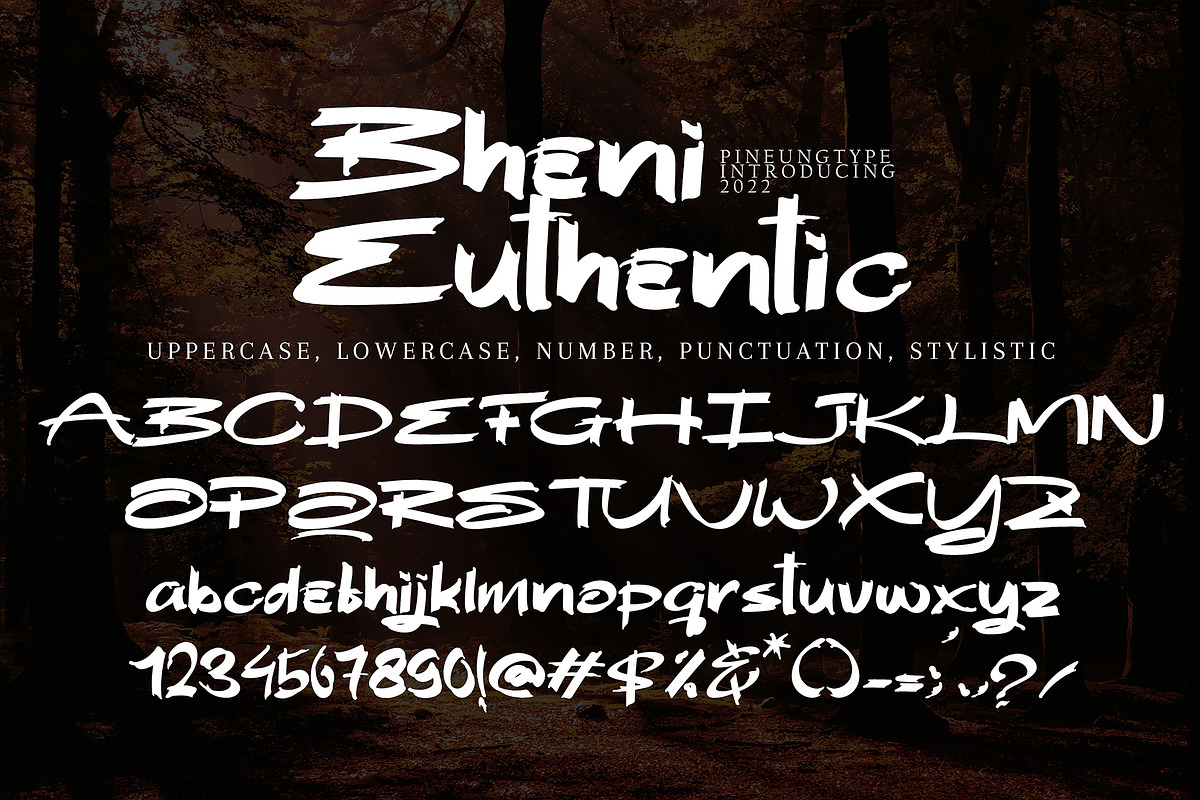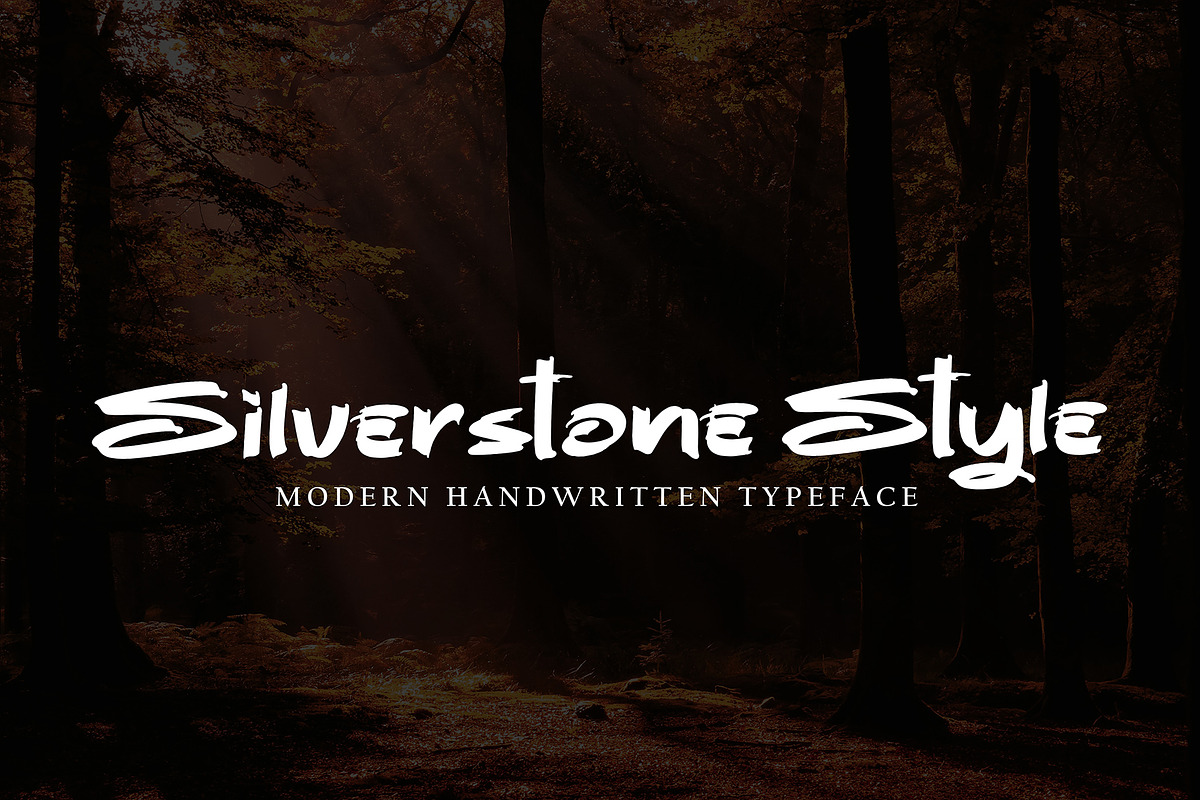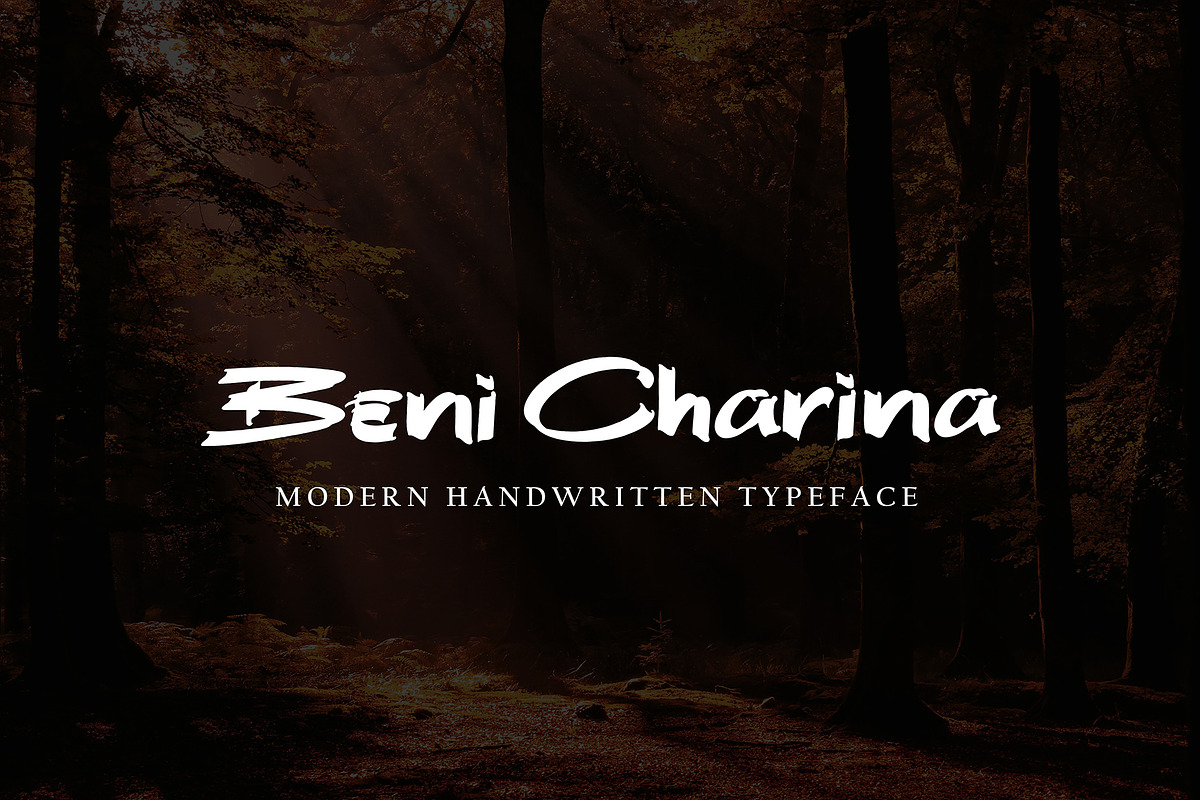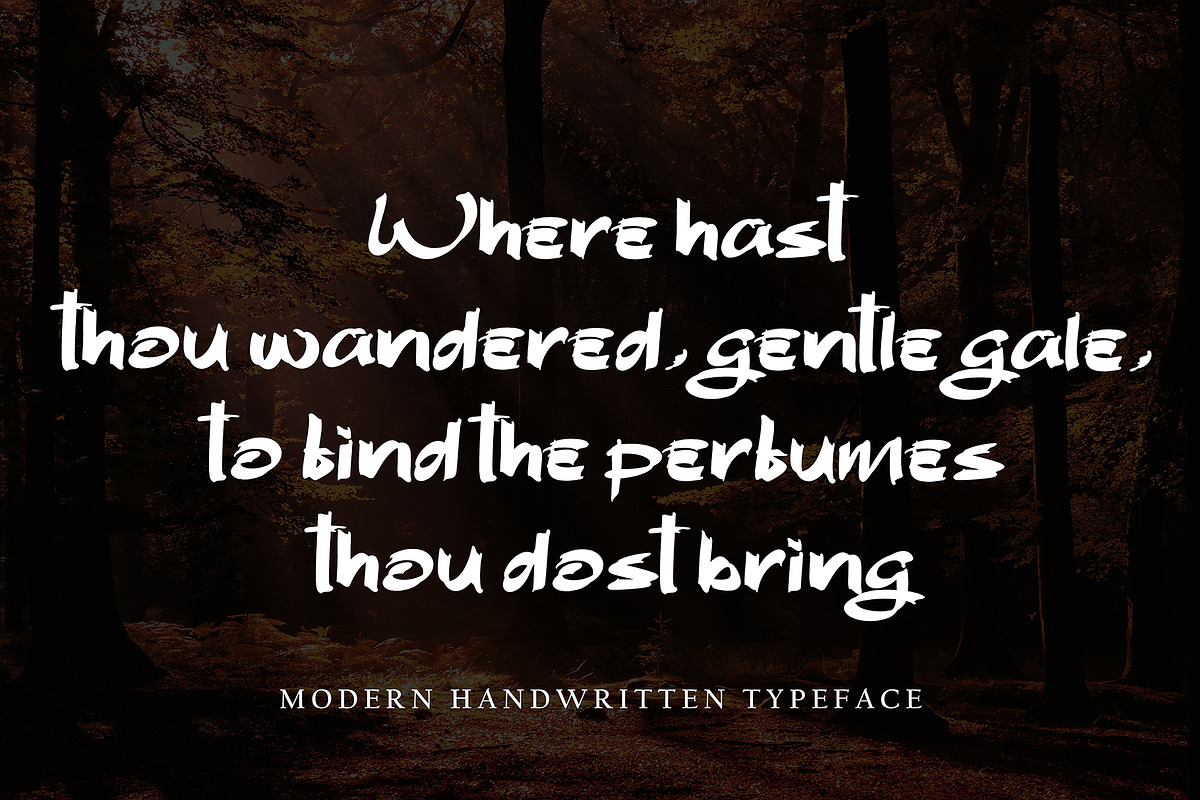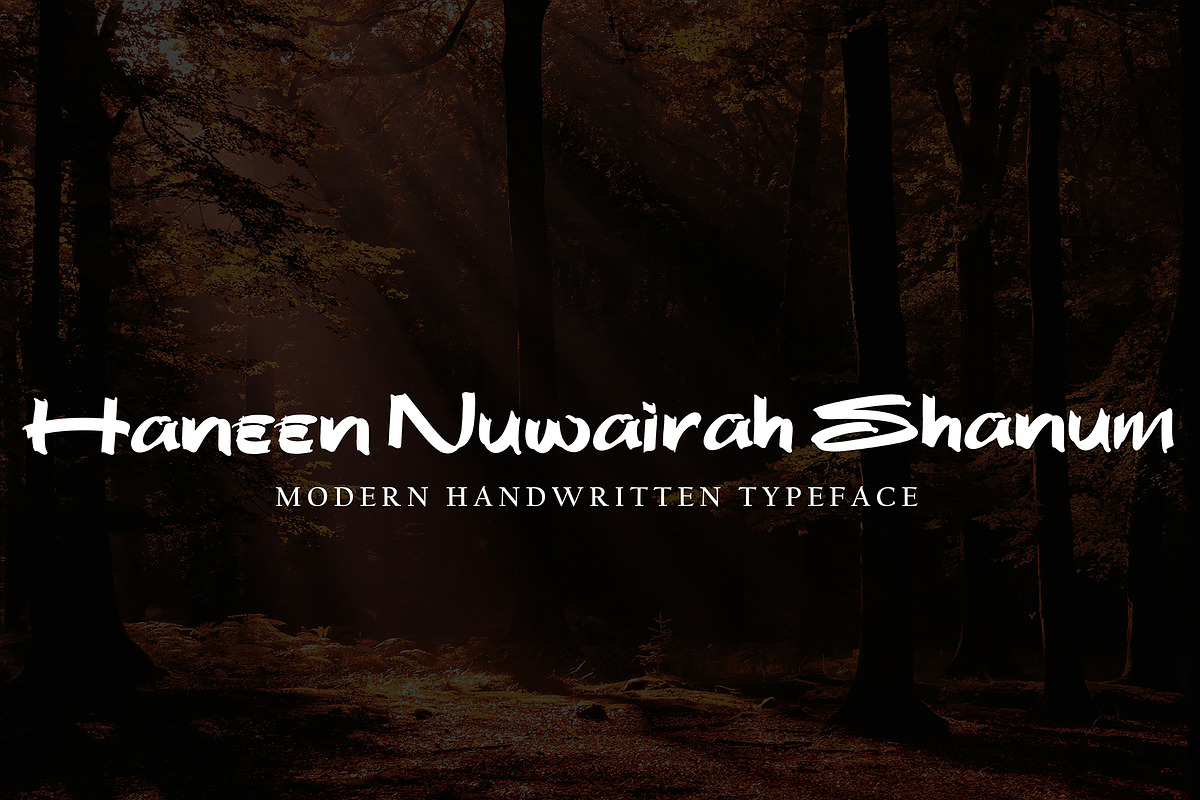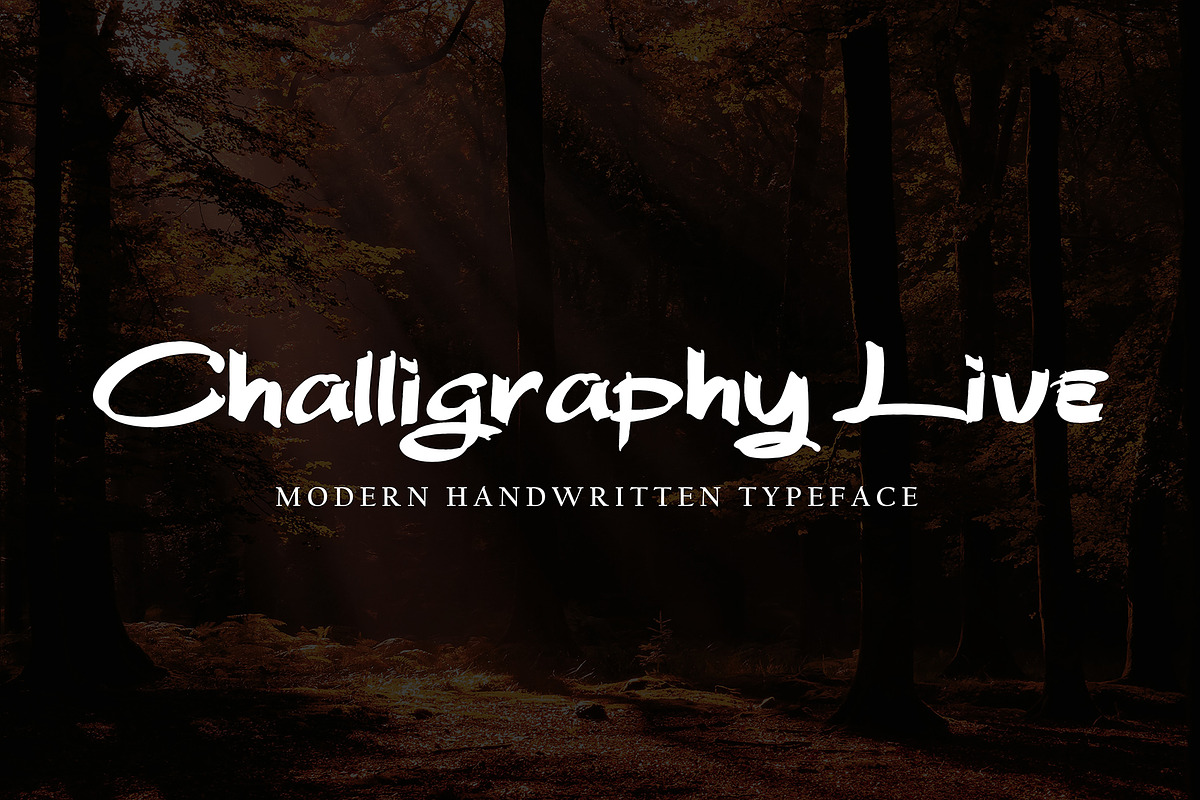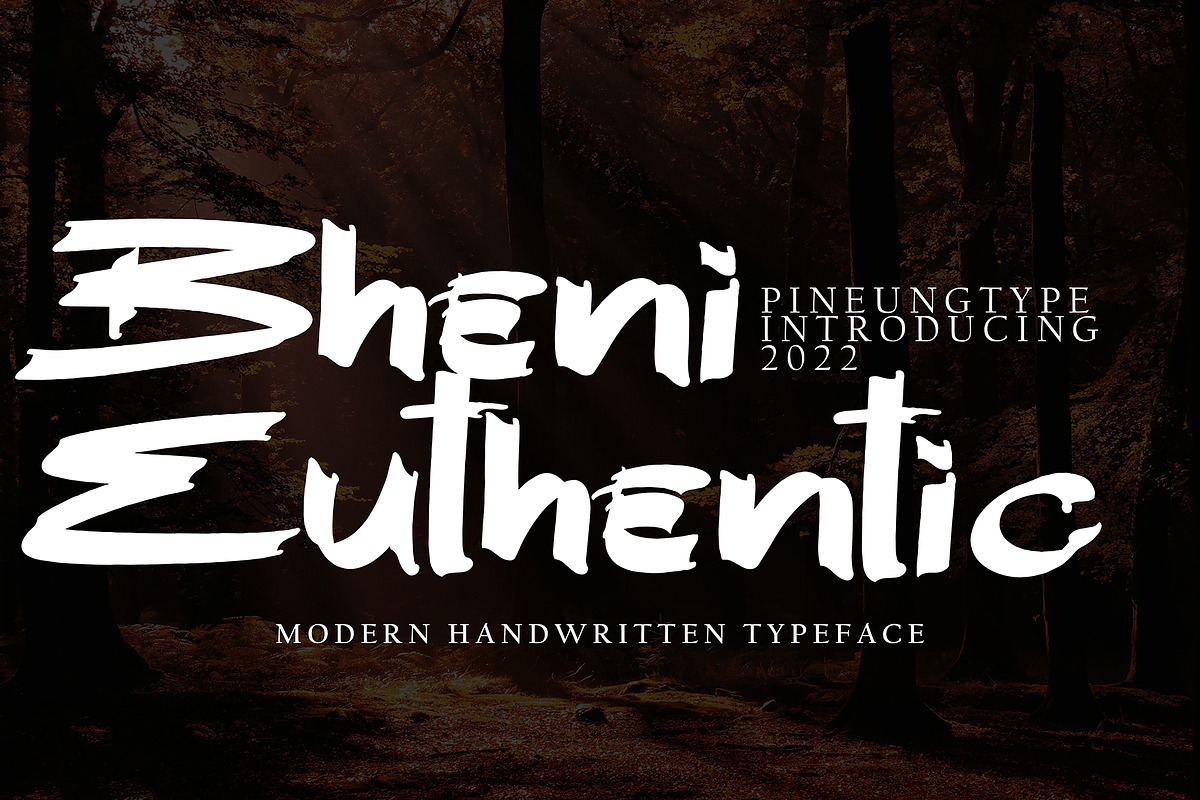
Bheni Euthentic
Bheni Euthentic with new style, this font will perfect for many different project ex: quotes, logo, blog header, poster, banding, letter, invitation, stationery, etc...